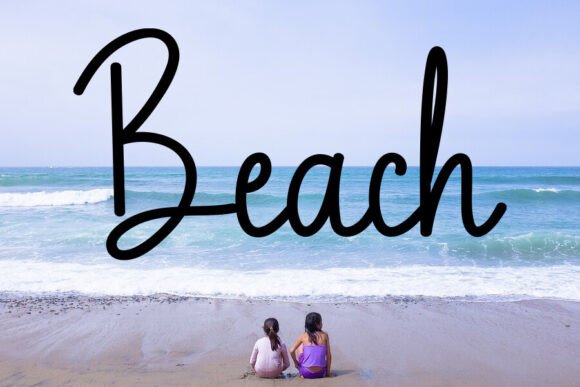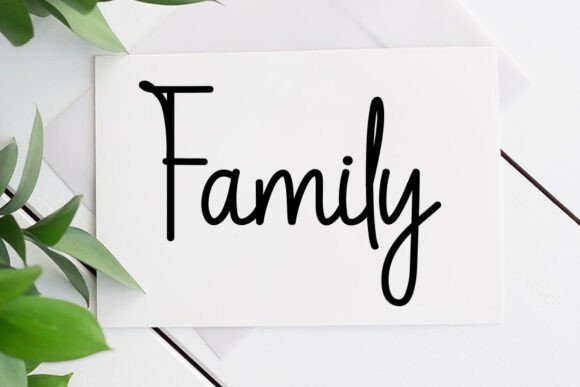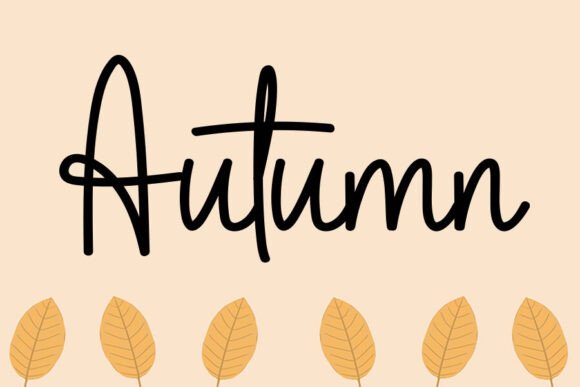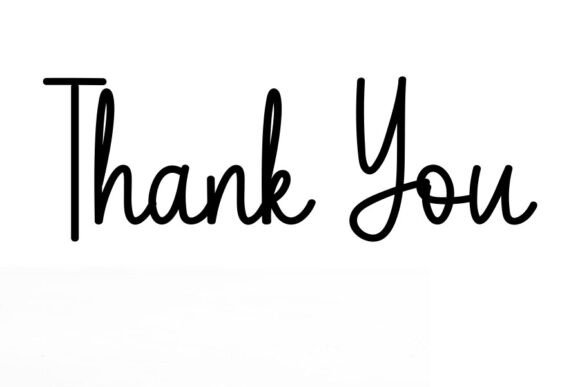
Discover the Charm of Amsterdam Font: Your New Go-To Handwritten Font
Are you tired of using the same old fonts for your designs, crafts, and digital projects? Look no further than Amsterdam Font, a fun and friendly handwritten font that’s sure to become your new favorite. In this article, we’ll dive into the world of Amsterdam Font and explore its versatility, charm, and endless possibilities for crafters, designers, and creatives.
What is Amsterdam Font?
Amsterdam Font is a beautiful, handcrafted font that’s perfect for adding a personal touch to your designs. Its friendly and approachable style makes it ideal for a wide range of projects, from digital designs and presentations to crafts, greeting cards, and more. Whether you’re a professional designer or a DIY crafter, Amsterdam Font is sure to bring a smile to your face and a touch of whimsy to your work.
The Versatility of Amsterdam Font
One of the best things about Amsterdam Font is its incredible versatility. This font can be used for:
- Crafts: Add a personal touch to your handmade crafts, such as scrapbooking, card making, and journaling.
- Digital Design: Use Amsterdam Font in your digital designs, including social media graphics, blog posts, and website headers.
- Presentations: Add a touch of personality to your presentations, making them more engaging and fun.
- Greeting Cards: Create one-of-a-kind greeting cards for special occasions, such as birthdays, holidays, and weddings.
Why You’ll Love Amsterdam Font
So, what makes Amsterdam Font so special? Here are just a few reasons why you’ll fall in love with this charming font:
- Unique and Handwritten: Amsterdam Font has a unique, handwritten style that’s full of character and personality.
- Easy to Read: Despite its playful style, Amsterdam Font is easy to read, making it perfect for both digital and print projects.
- Highly Versatile: As mentioned earlier, Amsterdam Font can be used for a wide range of projects, from crafts to digital designs.
- Fun and Friendly: Amsterdam Font has a fun and friendly vibe that’s sure to bring a smile to your face and make your designs more engaging.
Tips for Using Amsterdam Font
Now that you’re excited about Amsterdam Font, here are some tips for getting the most out of this amazing font:
- Experiment with Colors: Amsterdam Font looks great in a variety of colors, so don’t be afraid to experiment and find the perfect hue for your project.
- Mix and Match: Combine Amsterdam Font with other fonts and design elements to create unique and eye-catching designs.
- Play with Sizes: Amsterdam Font looks great in a range of sizes, from small and delicate to large and bold.
- Have Fun: Most importantly, have fun with Amsterdam Font! Its playful style is perfect for adding a touch of whimsy to your designs.
In conclusion, Amsterdam Font is a fun and friendly handwritten font that’s sure to become your new go-to font. Its versatility, charm, and endless possibilities make it perfect for crafters, designers, and creatives of all levels. Whether you’re working on a digital design, craft project, or presentation, Amsterdam Font is sure to bring a touch of personality and whimsy to your work. So why not give it a try and see the amazing things you can create?